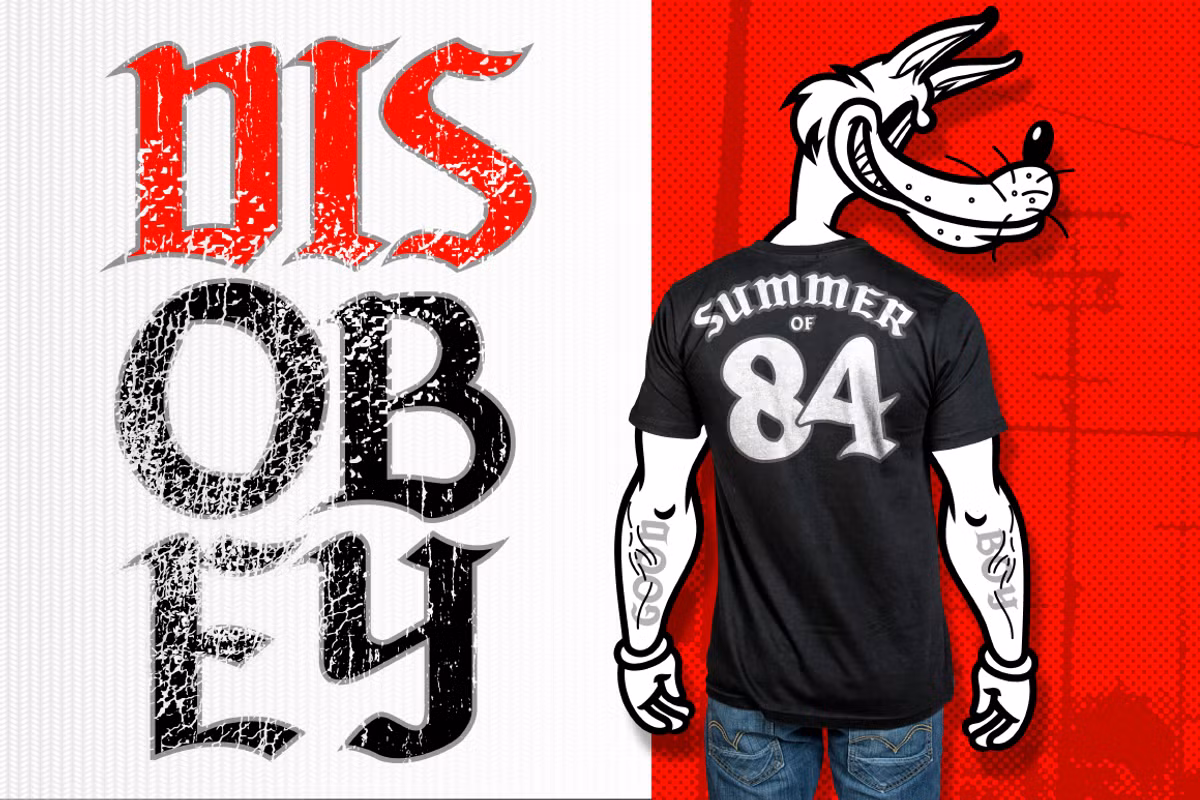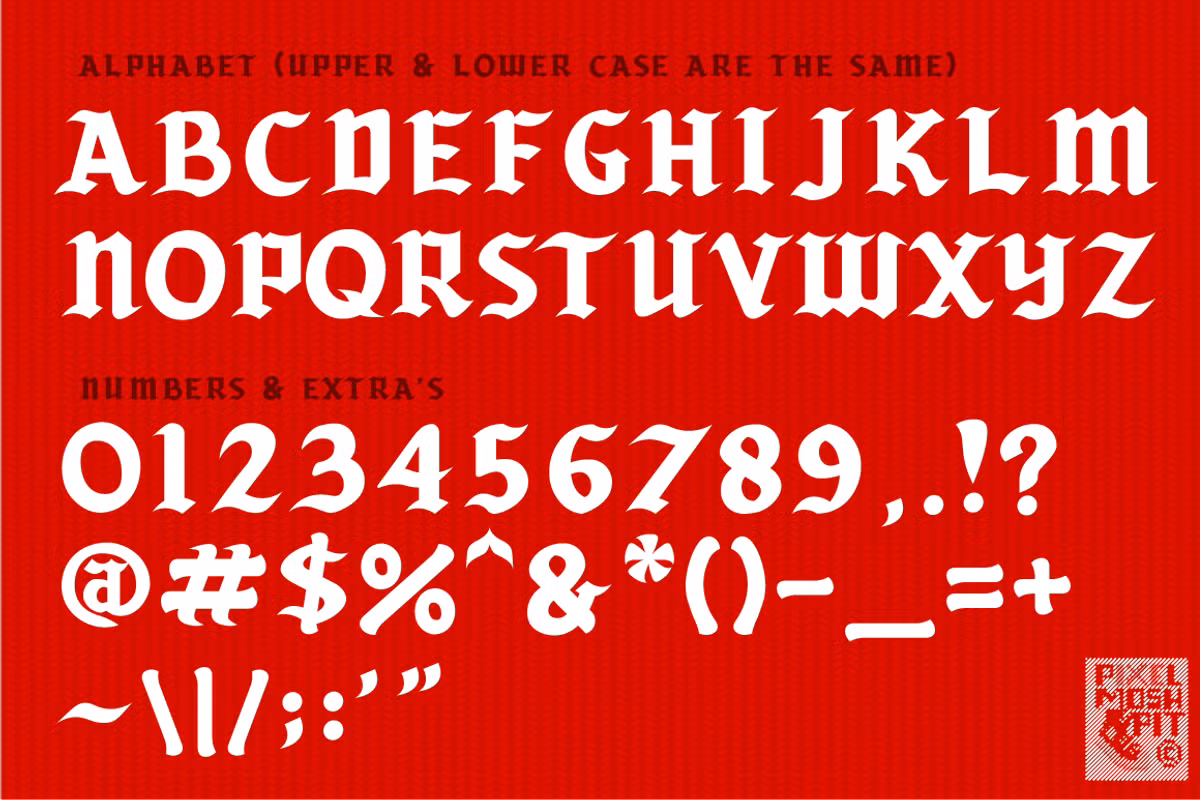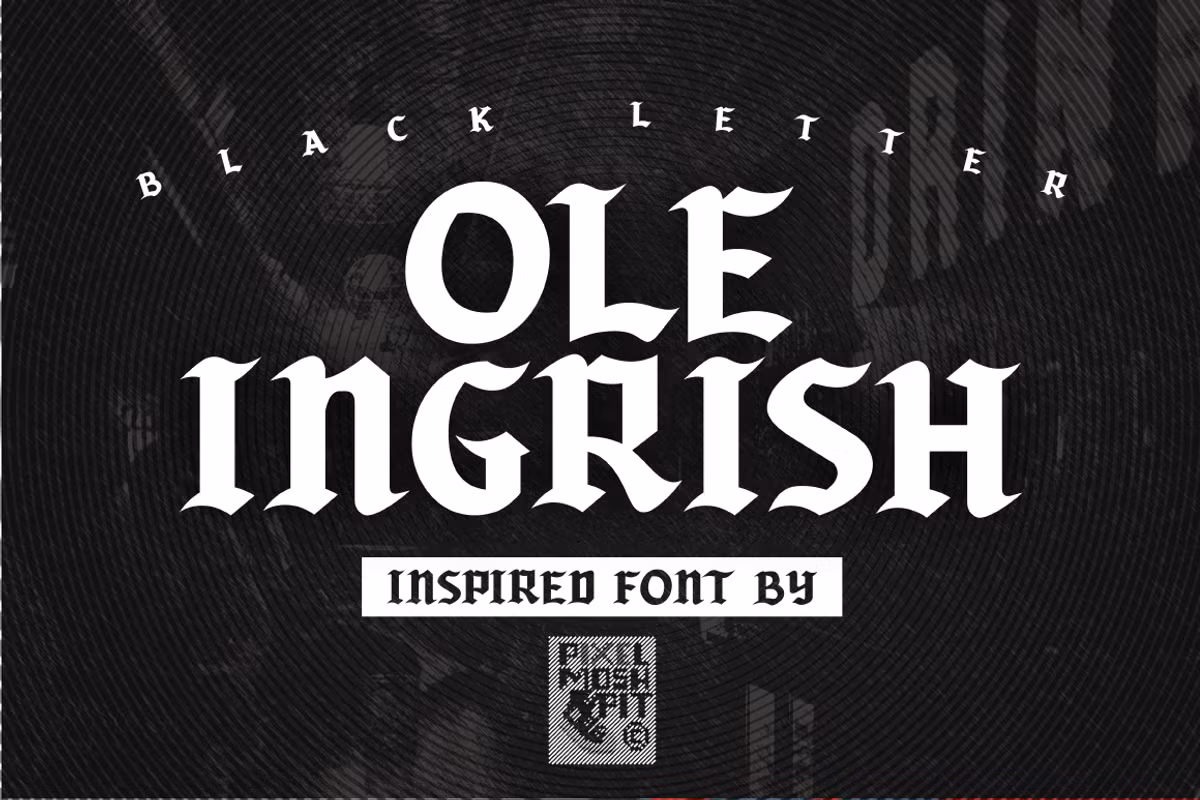
Ole Ingrish Font
Like many scrumptious Blackletter/Ole English fonts, Ole Ingrish font is influenced by a simplification of Caligraphy. This font should get you ready to style any dark or dope tshirt designs, album artworks or anything else which you think it will suffice! Visit samplesโ€™ pages to get some ideas for your papers.
Ole Ingrish Blackletter Font